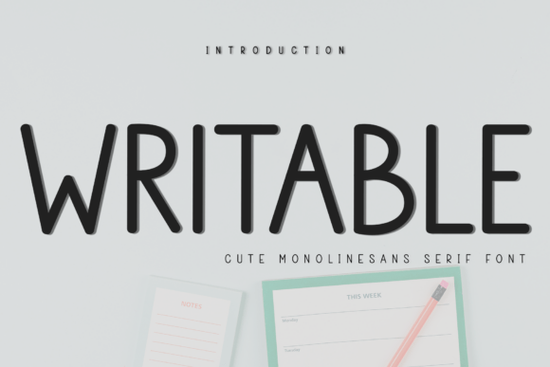
If you're looking for a Writable Font that feels both soft and distinctive, this typeface brings a unique character to any design. Its gentle strokes and natural flow make it stand out without being overpowering. Whether you're working on a craft project, a social media graphic, or a product label, Writable adds a personal, hand-drawn touch that many audiences find appealing.
What makes Writable Font different from other script fonts?
Unlike many script fonts that feel rigid or overly decorative, Writable strikes a balance between readability and charm. Each letter has a slight irregularity that mimics natural handwriting, which gives your projects an authentic, human feel. This makes it ideal for branding materials, invitations, and packaging where you want to convey warmth and approachability.
How can I use Writable Font in my projects?
There are many practical ways to apply Writable to your creative work. Here are some ideas that other designers and crafters have found effective:
- Product labels and tags – Use it for small-batch items like candles, soaps, and jams. The soft lettering gives a handmade feel that customers love.
- Social media quotes – Pair Writable with a clean background and a simple sans-serif font for inspirational posts or product announcements.
- Wedding invitations or greeting cards – Its romantic, gentle strokes work well for formal events but also for casual thank-you notes.
- Logos and branding – If you run a boutique or creative service, Writable can add a personal signature to your brand identity.
- Printable wall art – Create digital downloads for Etsy or your own shop. The font's readability ensures the message stays clear even at smaller sizes.
If you're in the print-on-demand space, you can also use Writable on mugs, t-shirts, or tote bags. Just make sure to check the font license for commercial use Writable is typically licensed for both personal and small business projects.
What kind of projects does Writable Font work best for?
Because of its soft and unique strokes, Writable excels in projects that need a human, approachable voice. It's less suited for highly formal corporate documents or very small text (under 12pt) where fine details might blur. But for titles, short phrases, and medium-sized body text, it performs beautifully. Many creative hobbyists use it for bullet journals and planners, as the font mimics their own handwriting while staying consistent.
Absolutely. Installing a font takes only a few minutes, and once it's in your system, you can start typing right away. If you're new to design, try using Writable in a simple project like a quote graphic in Canva or a label in Microsoft Word. You don't need advanced skills to see how it transforms your work. For more advanced users, adjusting letter spacing and adding slight texture can make the font look even more organic.
- Test the font at different sizes to ensure it remains readable, especially if you plan to use it for small print.
- Pair it with a clean sans-serif font (like the ones listed above) for a professional contrast.